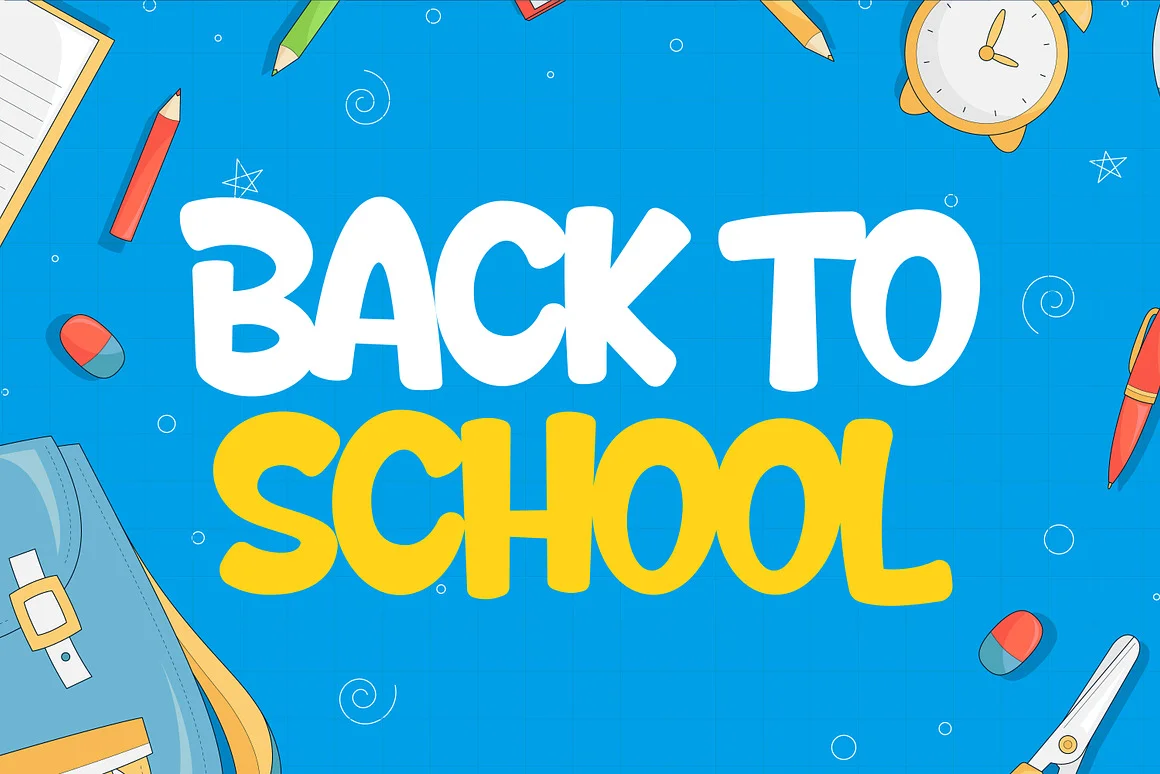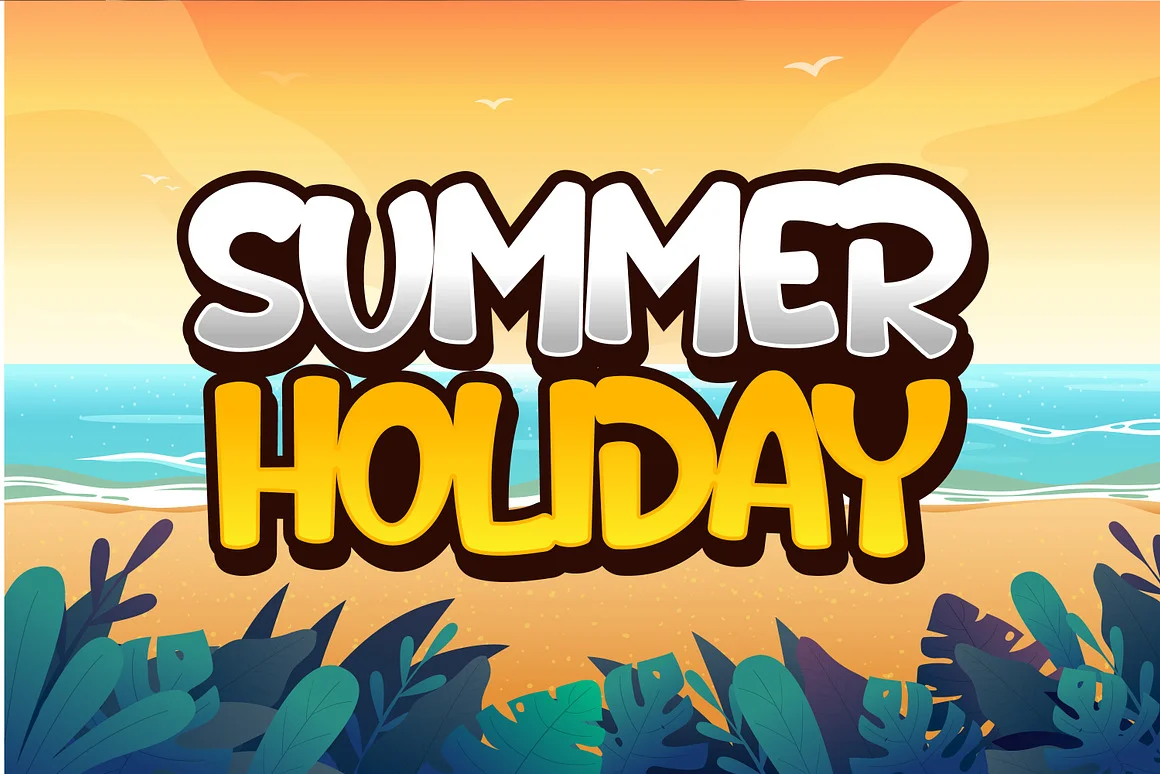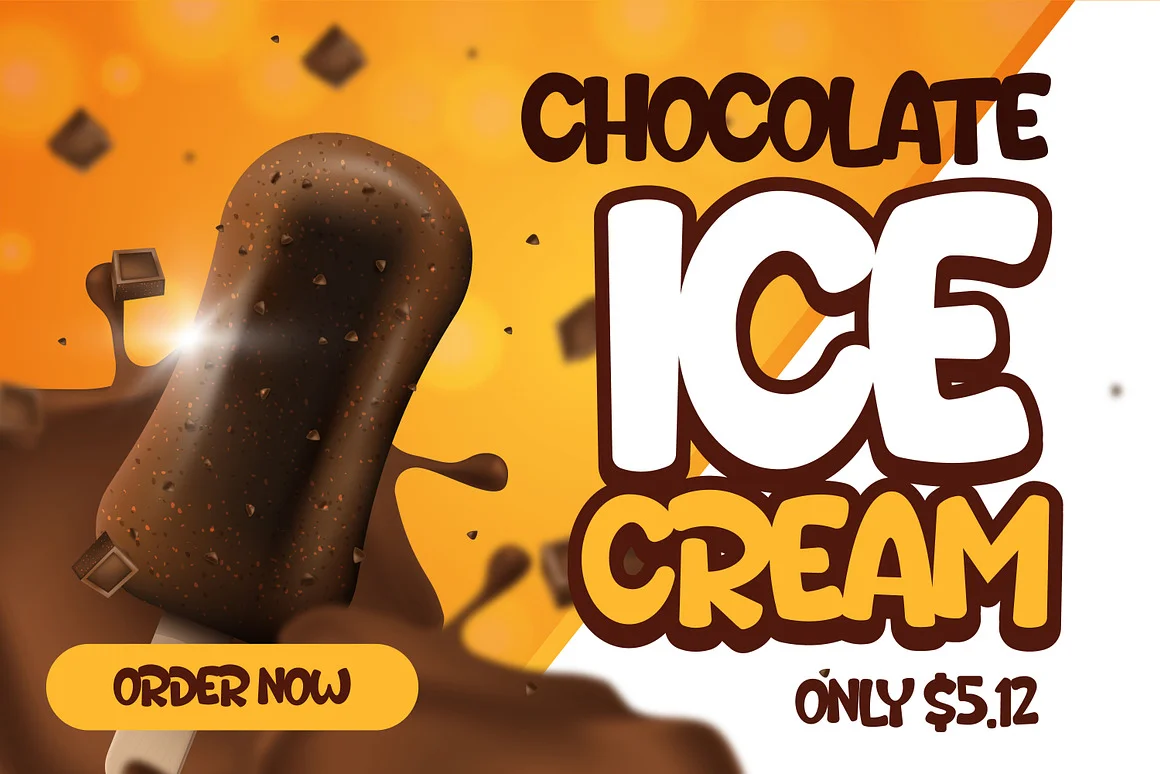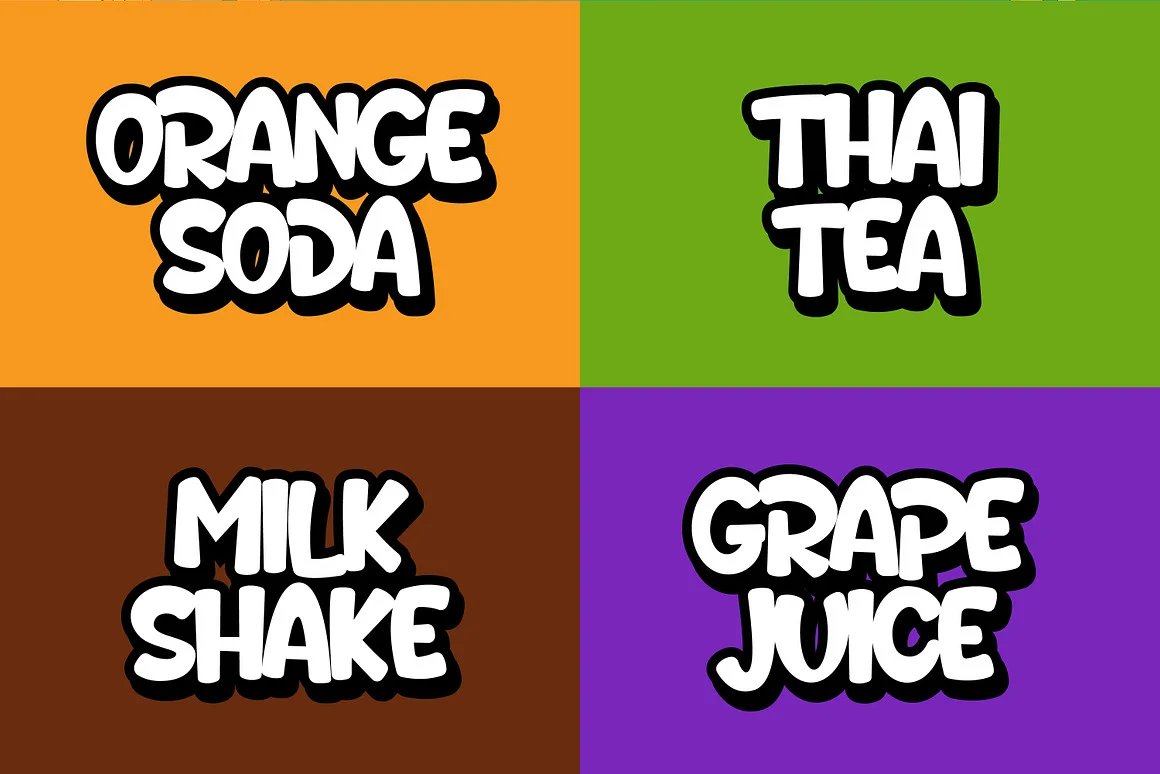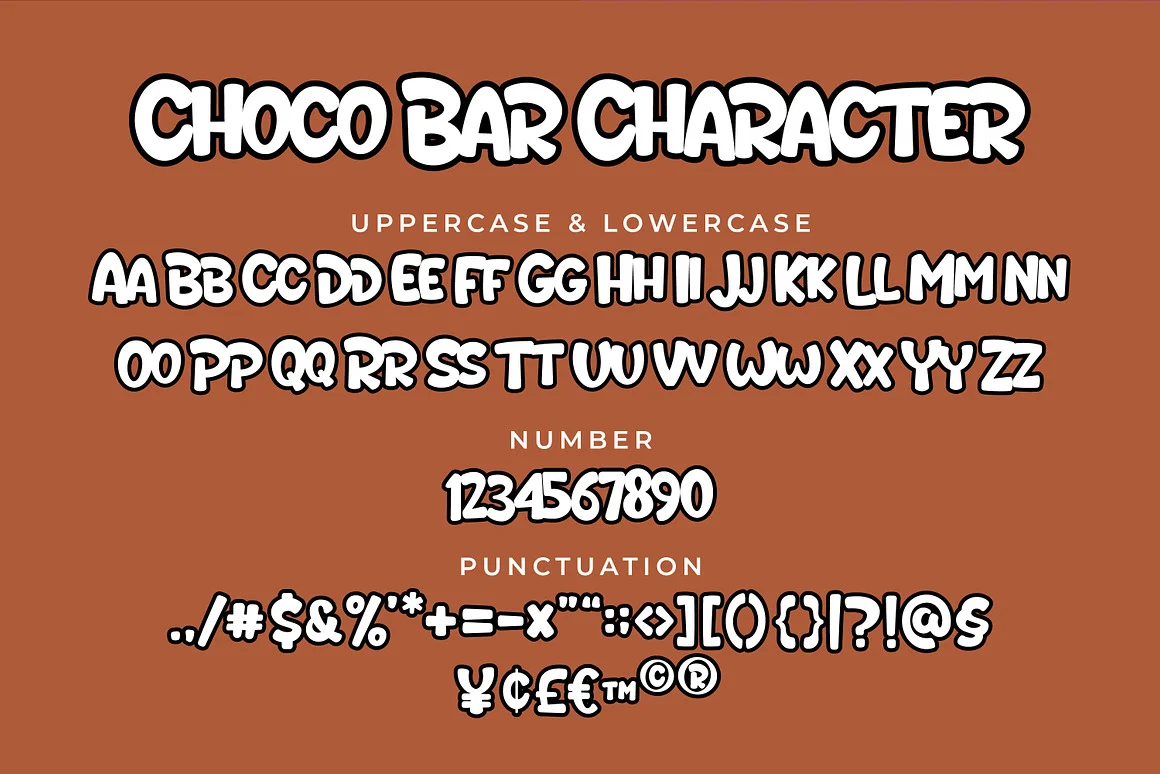
Choco Bar Playful Display Font
Typography shapes perception at a subconscious level. Choco Bar Playful Display leverages a confident voice that adapts to diverse briefs to make every composition feel considered. The typeface brings a bold, impact-first sensibility to a broad range of creative disciplines, with optical balance across all weights that holds up whether the work is print-first or screen-first.
In practice, Choco Bar Playful Display proves particularly effective for music packaging, environmental graphics, merchandise design, annual reports, theatrical programmes. Designers reaching for it find that the type decisions feel resolved rather than laboured — a useful quality when client timelines are tight.
The range of applications extends to street murals, social media graphics, event branding, album artwork. That breadth is deliberate: the proportions and spacing were stress-tested across a wide range of mock briefs before the typeface was finalised.
Designed primarily for sizes above 24pt, the glyphs feature expanded ink traps, generous spacing, and optical anchors that prevent visual vibration when used at headline scale. Tighter tracking at large sizes is built into the spacing tables.
At smaller sizes the design retains its character without becoming cluttered. This resilience across scales makes Choco Bar Playful Display equally suitable for a business card and a billboard — a useful property when assets must scale across a campaign.
Brand strategists building visual languages find Choco Bar Playful Display a reliable choice for projects that demand both personality and restraint. The design avoids the self-conscious quirkiness that dates quickly, settling instead for considered distinctiveness that holds up over time.